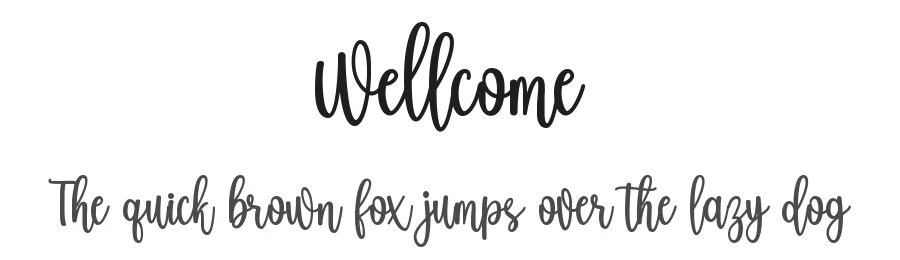
About Birdside Font
Birdside Font is a script font that shines as a display or heading face. Pair it with a clean sans-serif or serif font for body text β the contrast creates a clear hierarchy while the two styles stay balanced and easy to read.